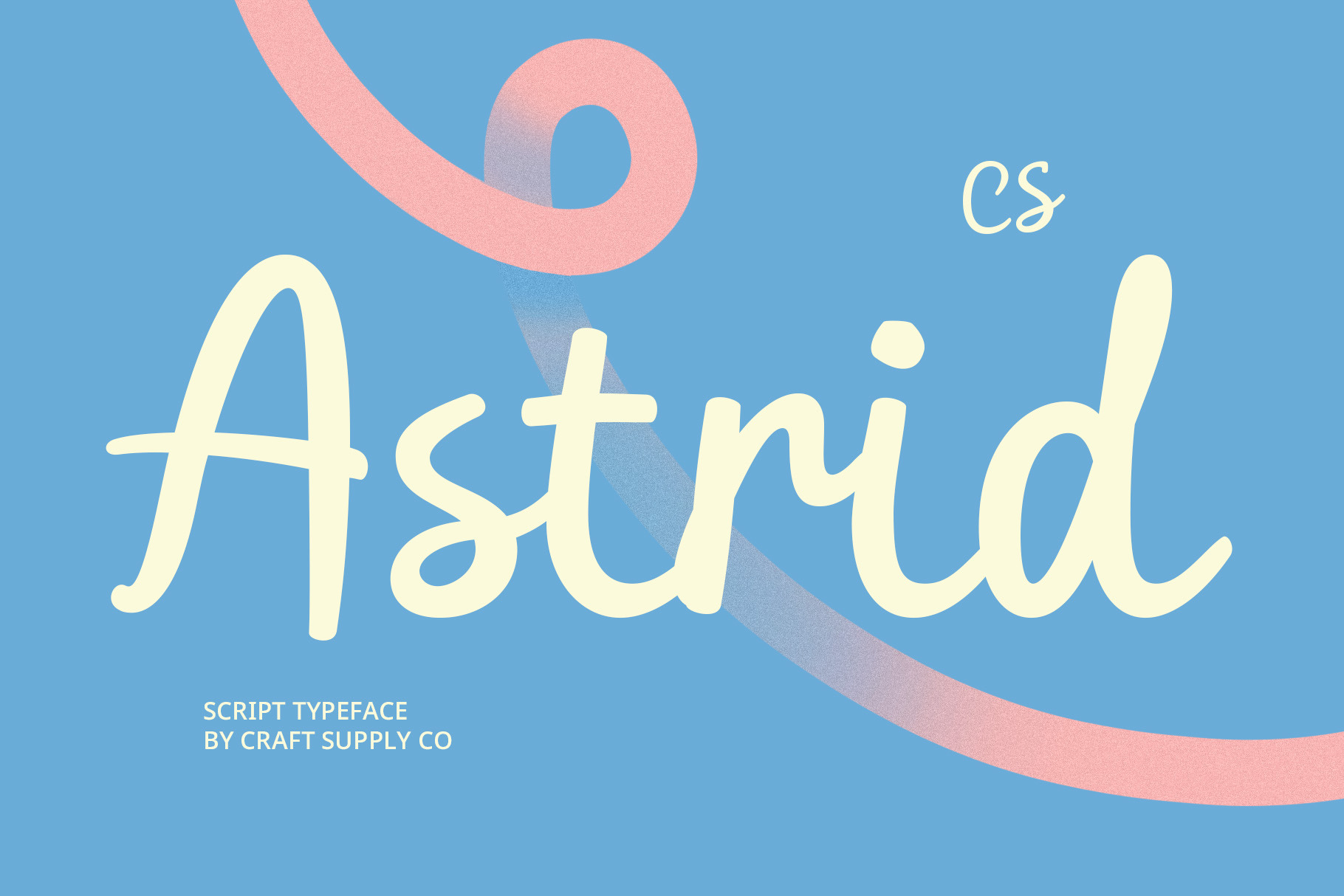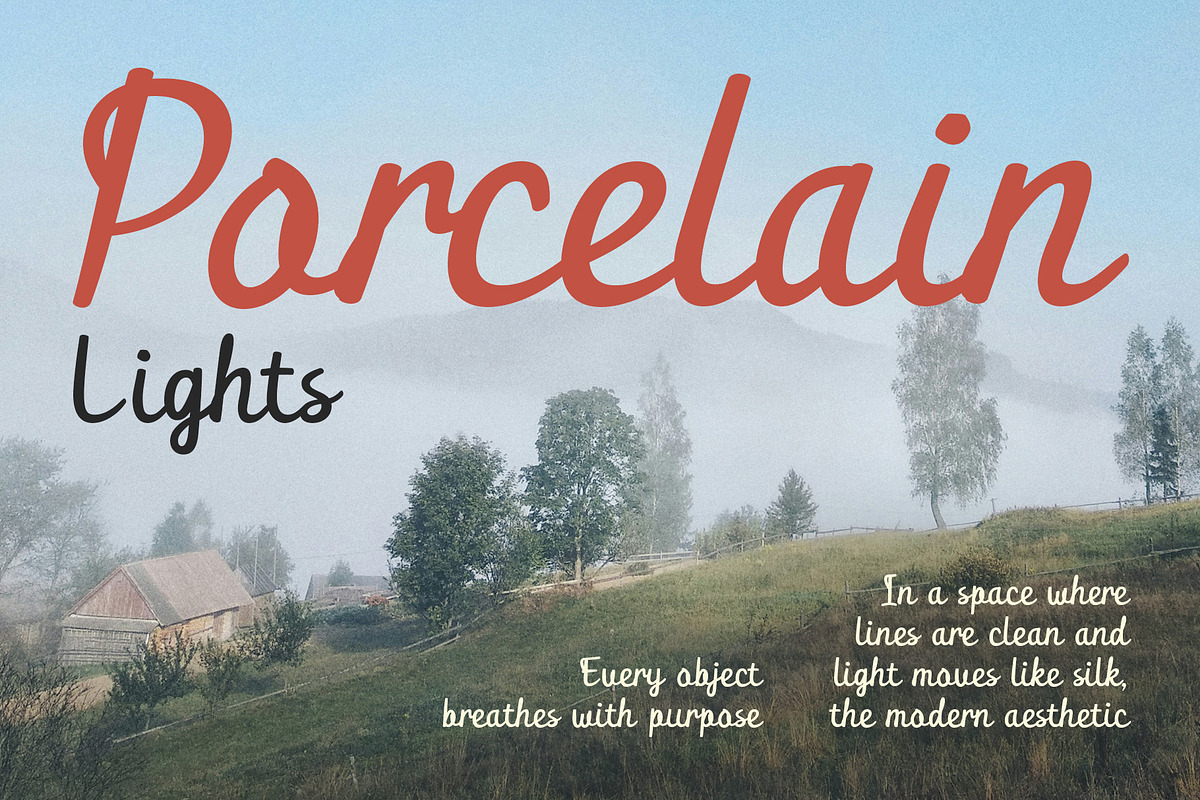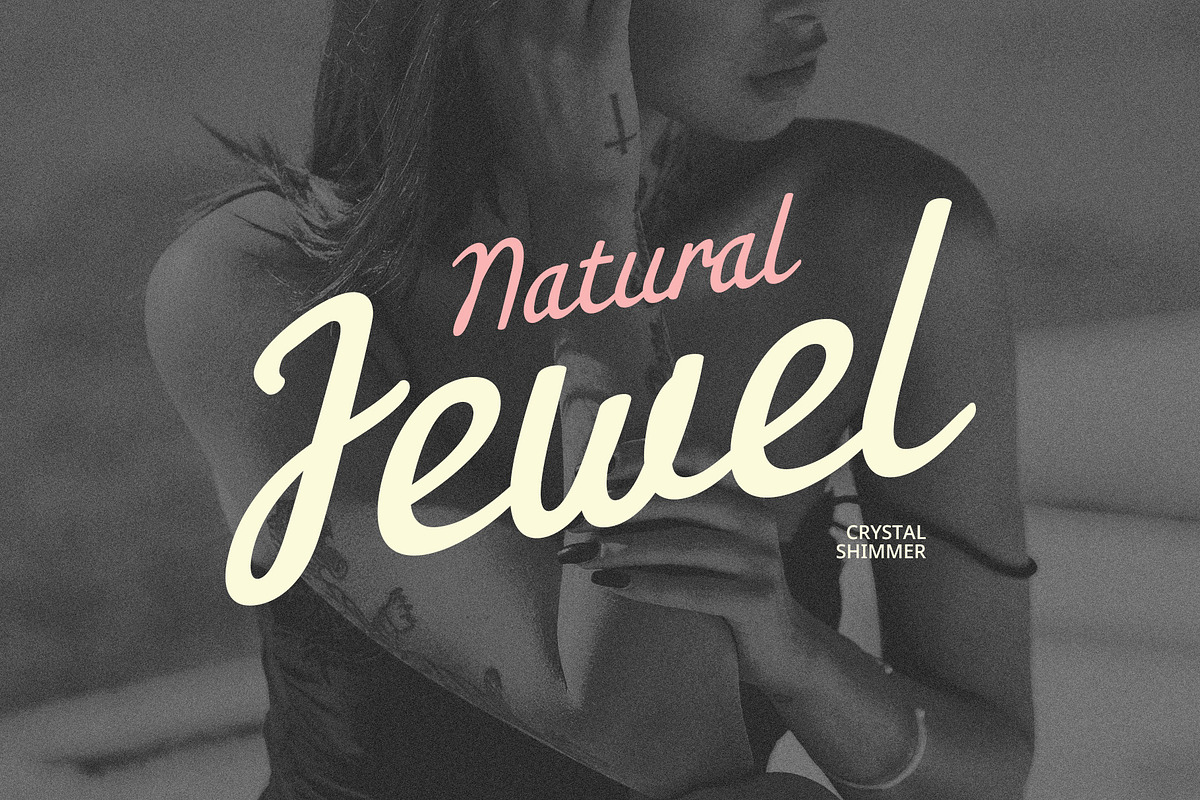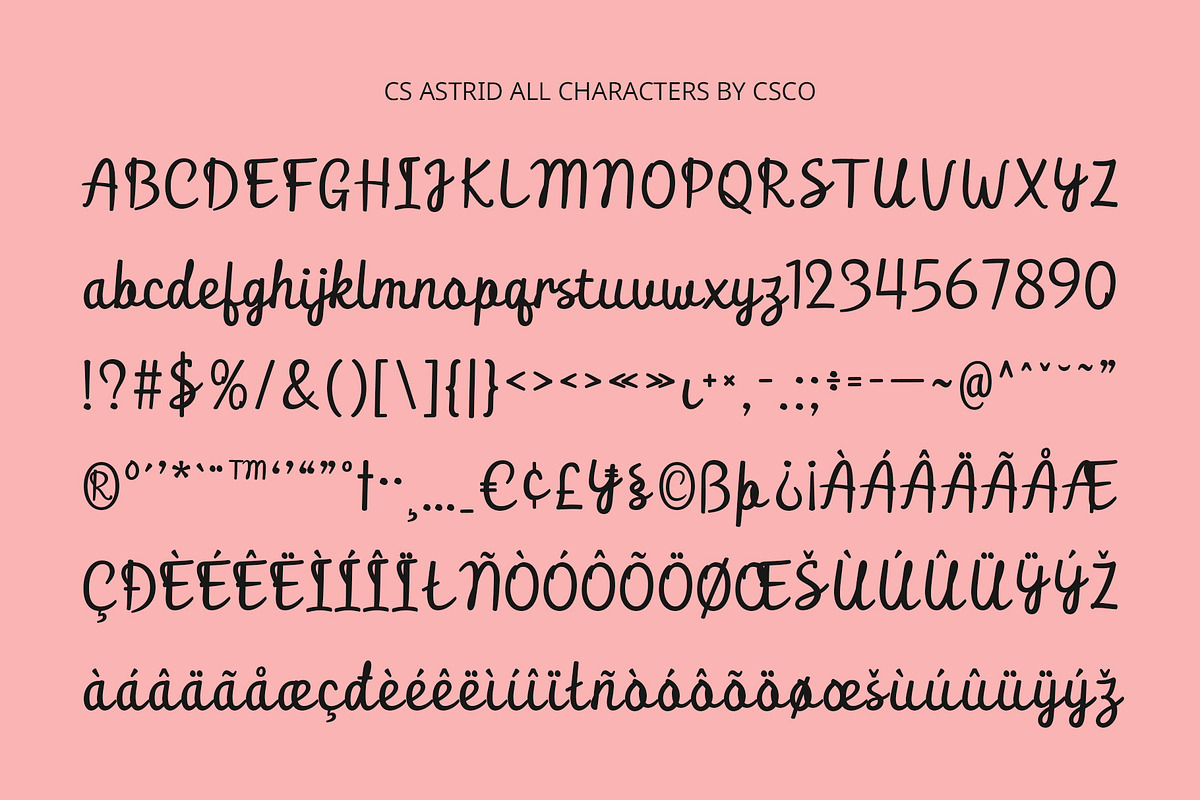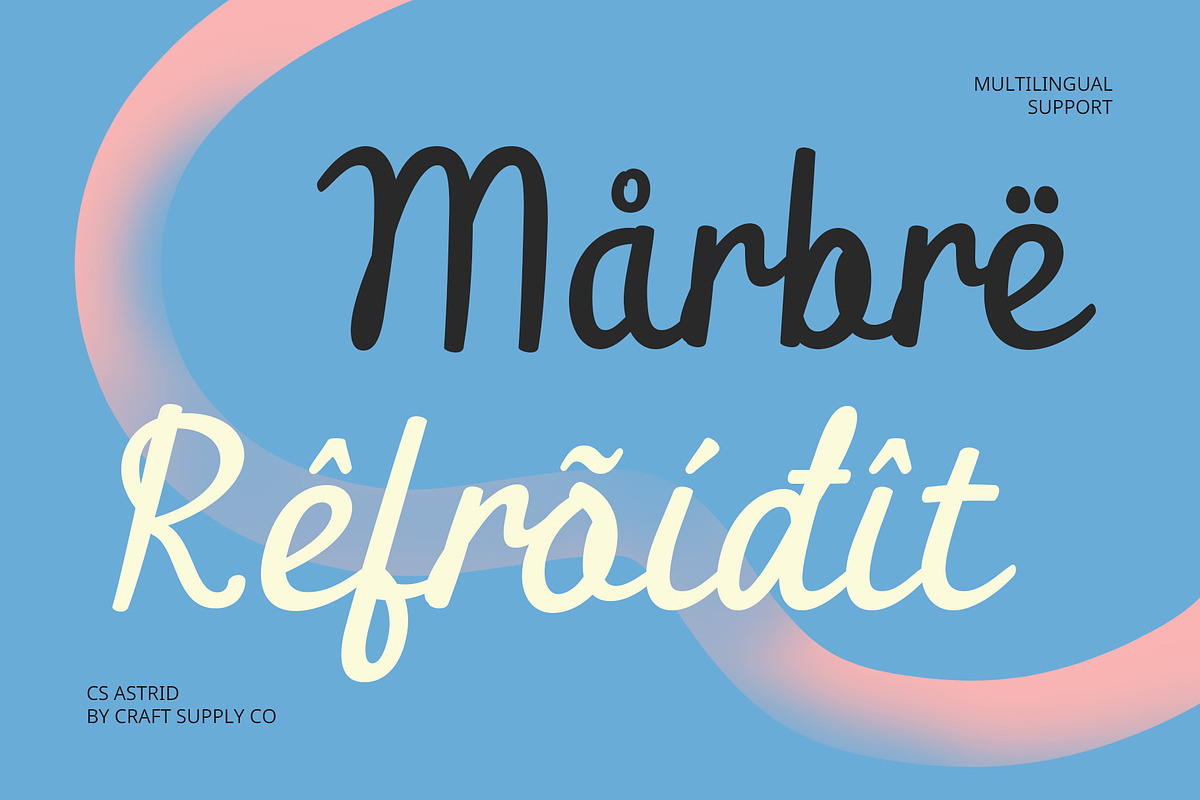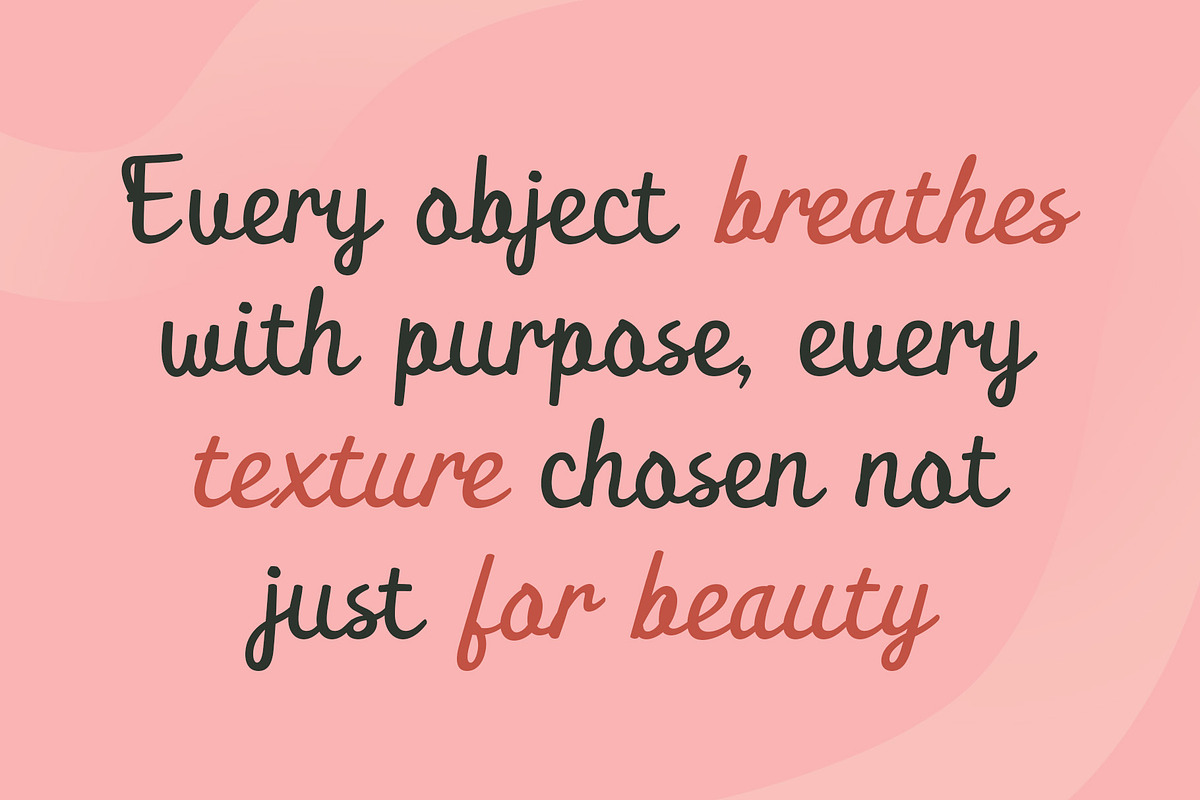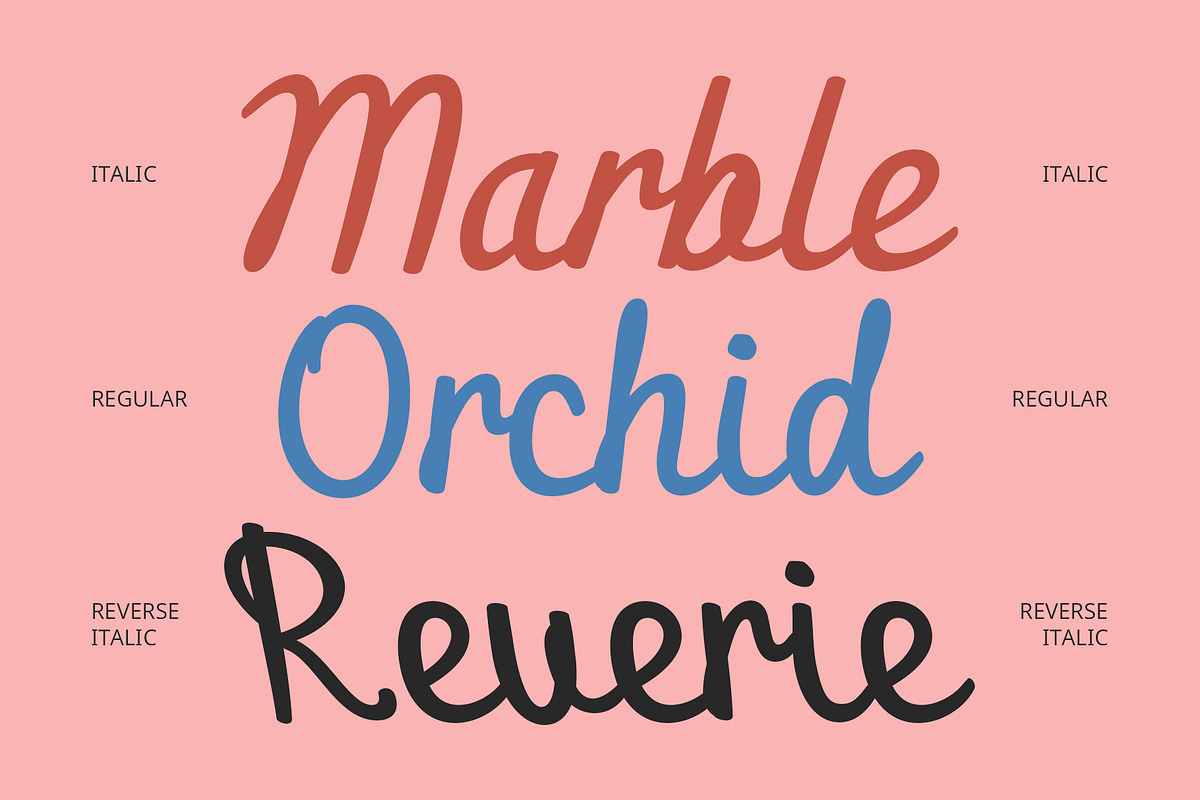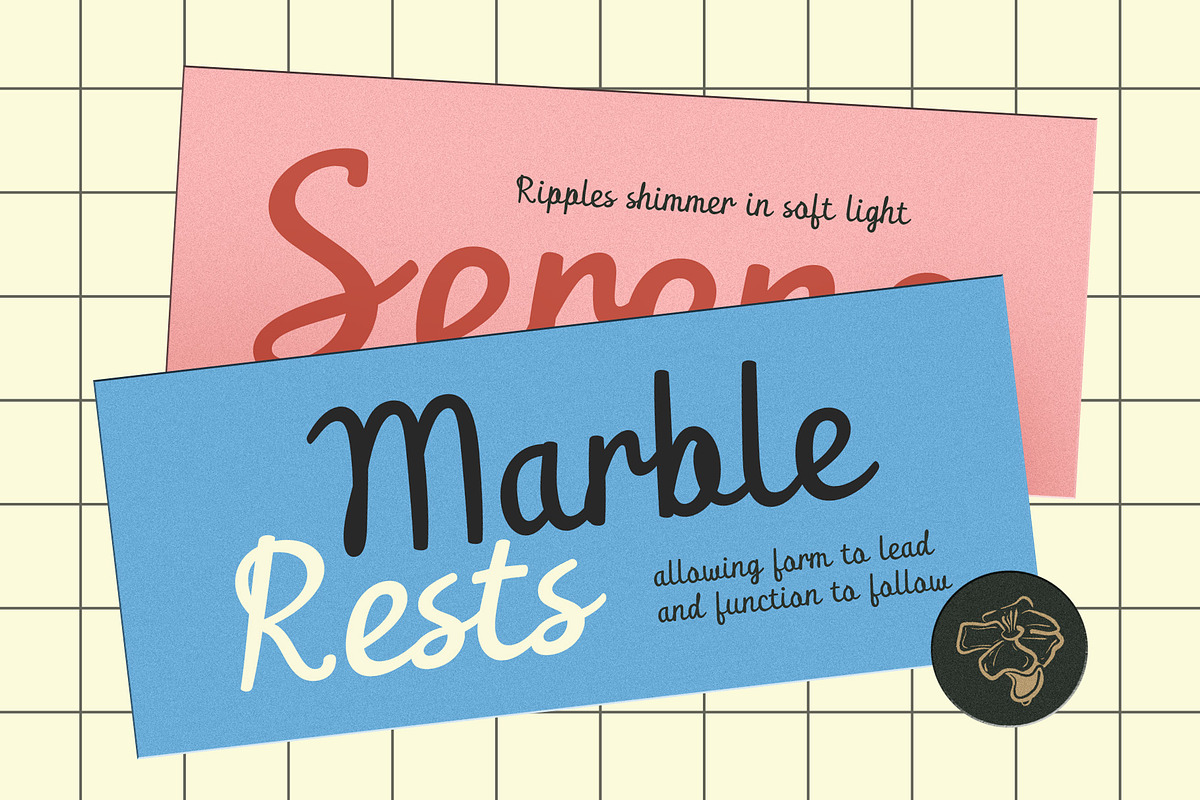
CS Astrid – Script Font
CS Astrid – Script Font: Graceful Curves with a Cheerful Soul
Clean, Cursive, and Contemporary Style CS Astrid is a modern script font designed with a cursive, connected handwriting style. Its clean strokes and flowing letterforms bring a soft, elegant rhythm that feels both stylish and effortless—perfect for designs that seek a natural yet polished look.
Smooth Curves and Feminine Elegance Each character in CS Astrid is crafted with smooth, rounded curves and gentle transitions, evoking a sense of warmth and grace. The feminine elegance in its structure adds a delicate charm, ideal for beauty, fashion, or lifestyle themes.
Cheerful and Approachable Aesthetic While elegant, CS Astrid also carries a casual and cheerful spirit. Its inviting shapes and balanced proportions make it suitable for conveying friendliness and creativity—great for quotes, branding, packaging, or social content.
Versatile and Highly Readable Designed with clarity in mind, CS Astrid ensures excellent legibility even at smaller sizes. Its refined script style adapts beautifully across various design contexts, from wedding invitations and boutique branding to digital graphics and editorial titles. Despite its script form, CS Astrid maintains excellent readability. Its careful spacing, clear strokes, and consistent rhythm allow it to be used effectively at various sizes, from headline text to detailed captions. It’s suitable for both digital and print use, offering design flexibility with every letter.